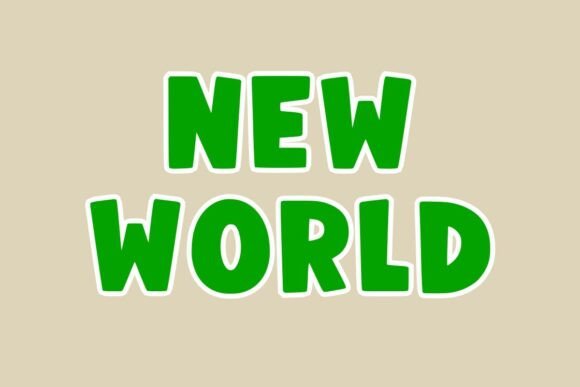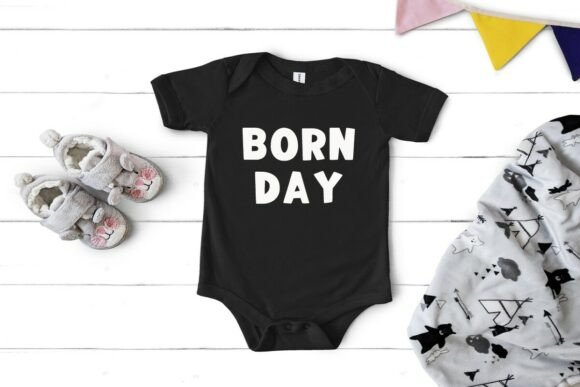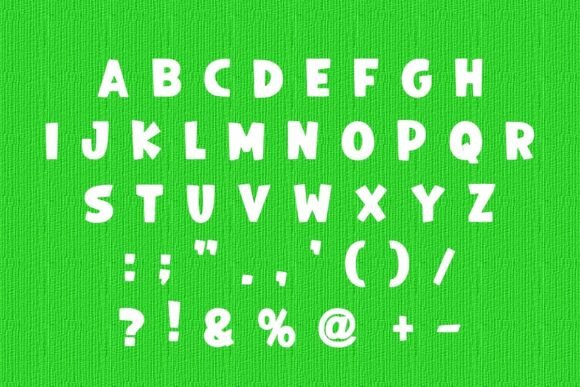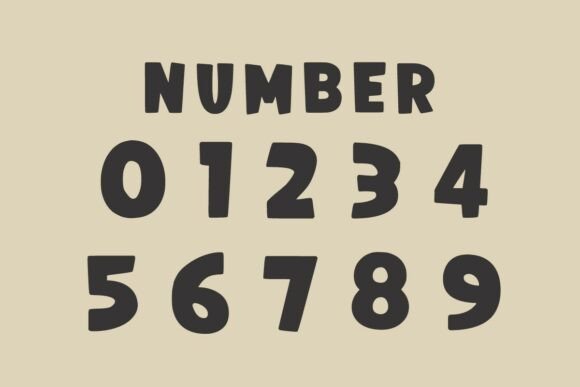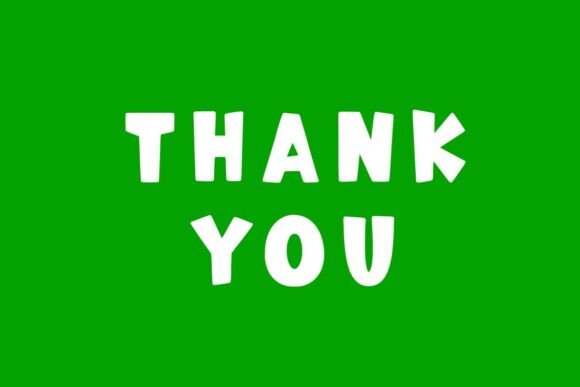
Discover Your New Best Friend: Animal Planet Font
You know that moment when you’re brainstorming ideas for a project and you stumble upon the perfect font to bring it all together? For many designers, that moment is about to arrive with the adorable Animal Planet Font! This charming display font is specifically designed to radiate friendliness and approachability, making it perfect for a wide range of creative projects.
Whether you’re crafting a personalized greeting card or designing a logo for a kids’ brand, the Animal Planet Font is an excellent choice. Its playful and youthful vibe makes it an instant favorite among designers. What’s more, this font is incredibly versatile and can be used for various applications, from product packaging to posters and labels. As a designer, you’ll appreciate the flexibility and creativity that this font offers.
Animal Planet Font Key Features
- Font Family: The Animal Planet Font is a custom-designed sans-serif font, specifically created for the Animal Planet brand.
- Unique Characteristics: The Animal Planet Font features a distinctive rounded sans-serif design, with subtle rounded edges and a friendly, approachable feel.
Designer Review: Animal Planet Font
When I first saw the Animal Planet Font, I was excited to dive in and explore its unique features. And, overall, I’m not disappointed! ✨ Here are some things that work well:
- **Distinctive style**: The font has a fun, playful vibe that’s perfect for animal-related content. It’s immediately recognizable as the font used by Animal Planet, and it adds a lot of character to any project.
- **Wide range of weights**: The font comes in a variety of weights, from light to bold, which makes it easy to use in different contexts.
- **Great for body text**: The font is well-suited for body text, and it’s easy to read even in smaller sizes.
However, there are a few limitations I’ve noticed: ⚠️
- **Not ideal for headlines**: While the font is great for body text, it’s not the best choice for headlines. It can be a bit too casual and playful for important headings.
- **Limited language support**: The font only includes support for a few languages, which may be a problem for projects that require more extensive language support.
Overall, I think the Animal Planet Font is a great choice for animal-related projects, or for anyone who wants to add a fun, playful touch to their design. Just be aware of its limitations, and use it accordingly.
The Animal Planet Font is perfect for:
- Wildlife-themed projects
- Outdoor and nature-inspired designs
- Children’s educational materials
For optimal results, use the font in conjunction with images of animals or nature-inspired graphics.